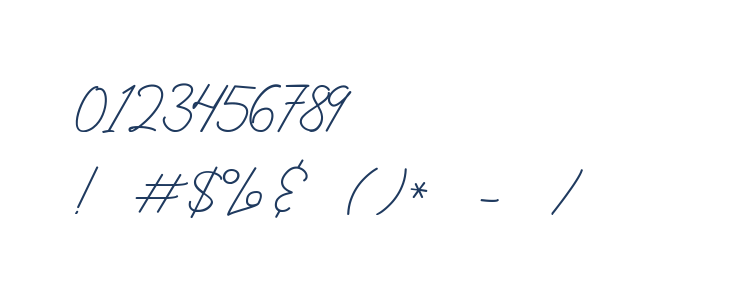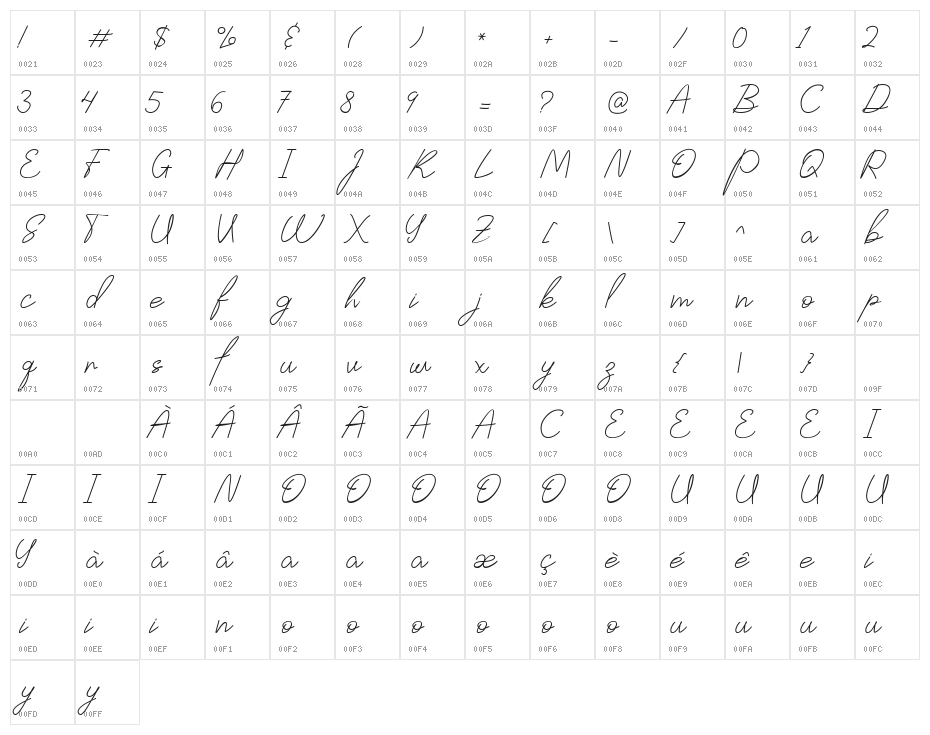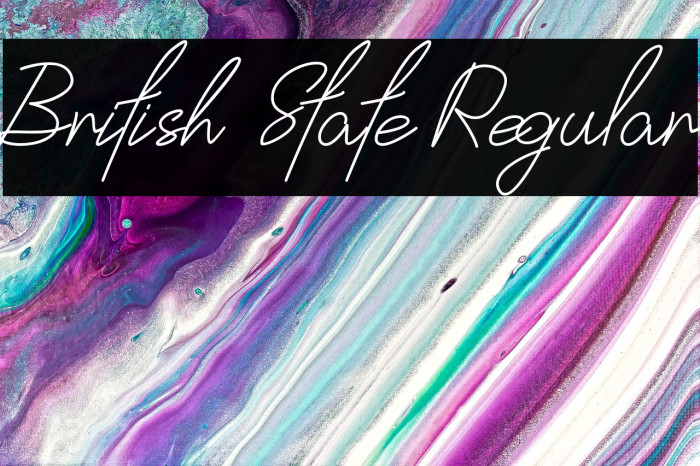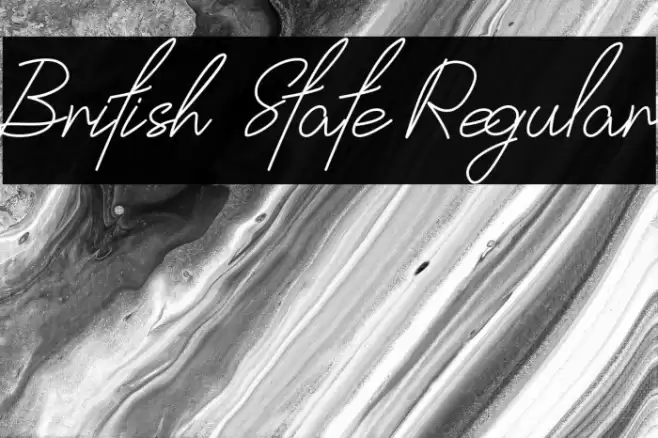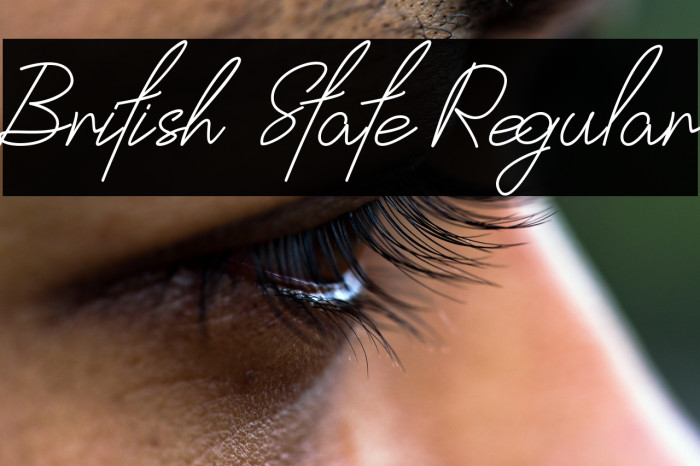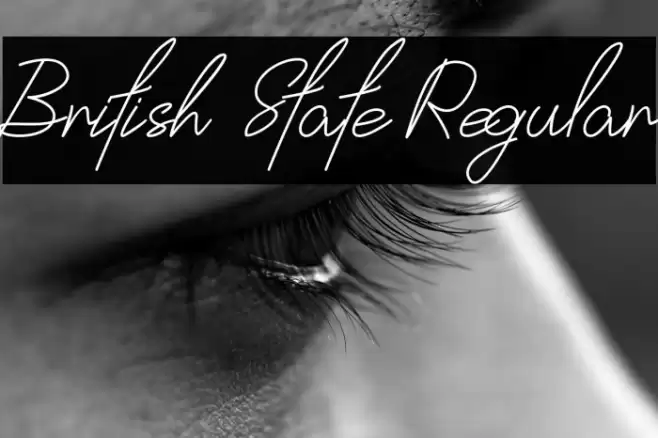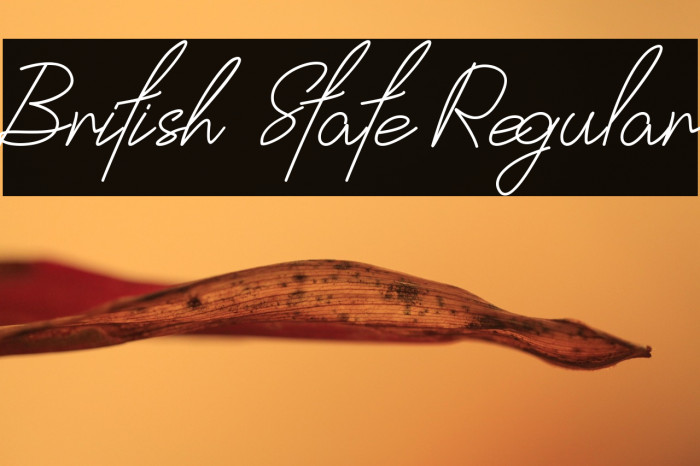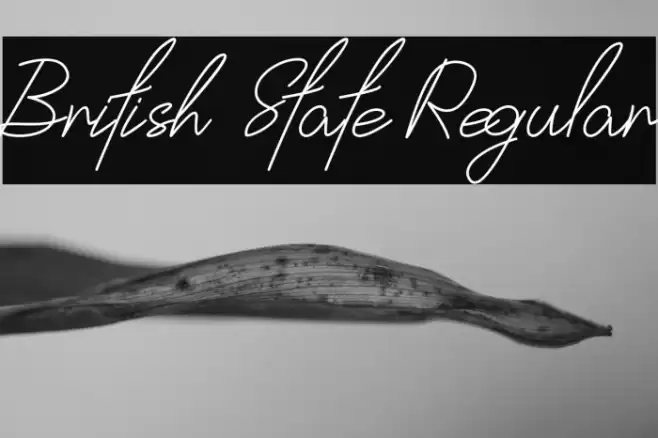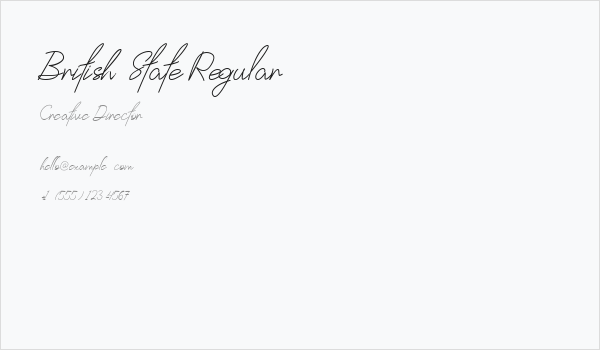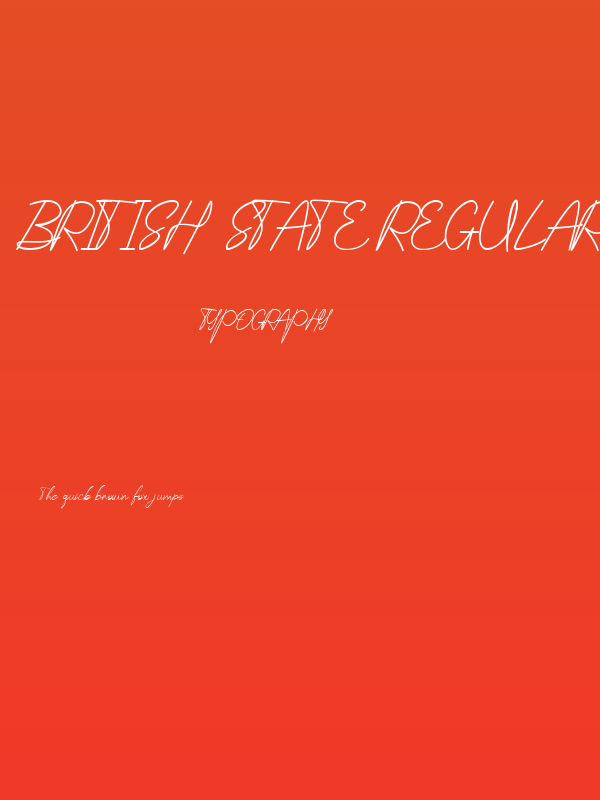
British State Regular Font
British State Regular Description
This font features a flowing, cursive style that mimics elegant handwriting. The letters are interconnected, creating a seamless and fluid appearance. The strokes are smooth and consistent, with a slight slant that adds to the handwritten feel. The uppercase letters are bold and prominent, while the lowercase letters maintain a delicate and graceful form. The numerals and special characters are crafted to match the overall aesthetic, ensuring a cohesive look across all text. This font exudes sophistication and charm, making it ideal for projects that require a personal touch.
| Use Case | Logos, Invitations, Personal Correspondence |
| Proposed Projects | Ideal for wedding invitations, personal letters, branding, and any project that requires a touch of elegance and sophistication. |